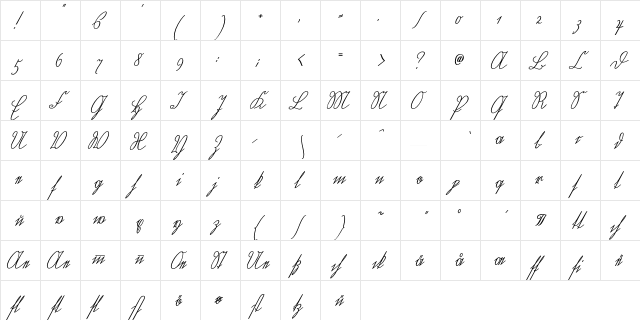
Wiegel Kurrent Medium Regular
| Foundry | Peter Wiegel |
| Designer | Peter Wiegel |
Design Context for Wiegel Kurrent Medium Typeface
Wiegel Kurrent Medium is a composed and adaptable typeface that performs quietly and consistently across a wide range of design contexts.